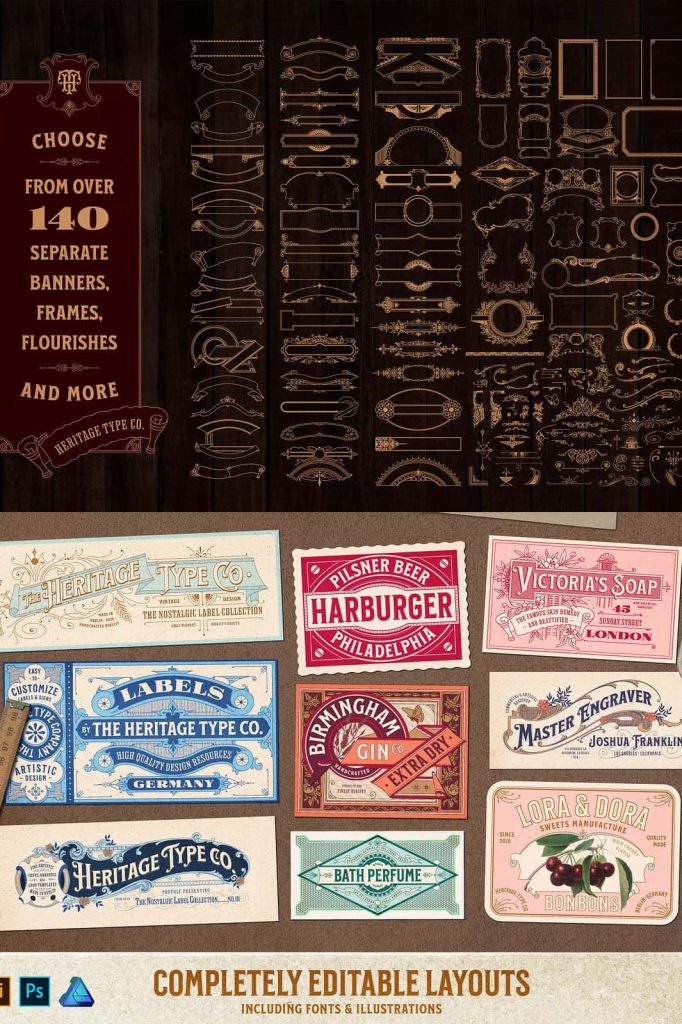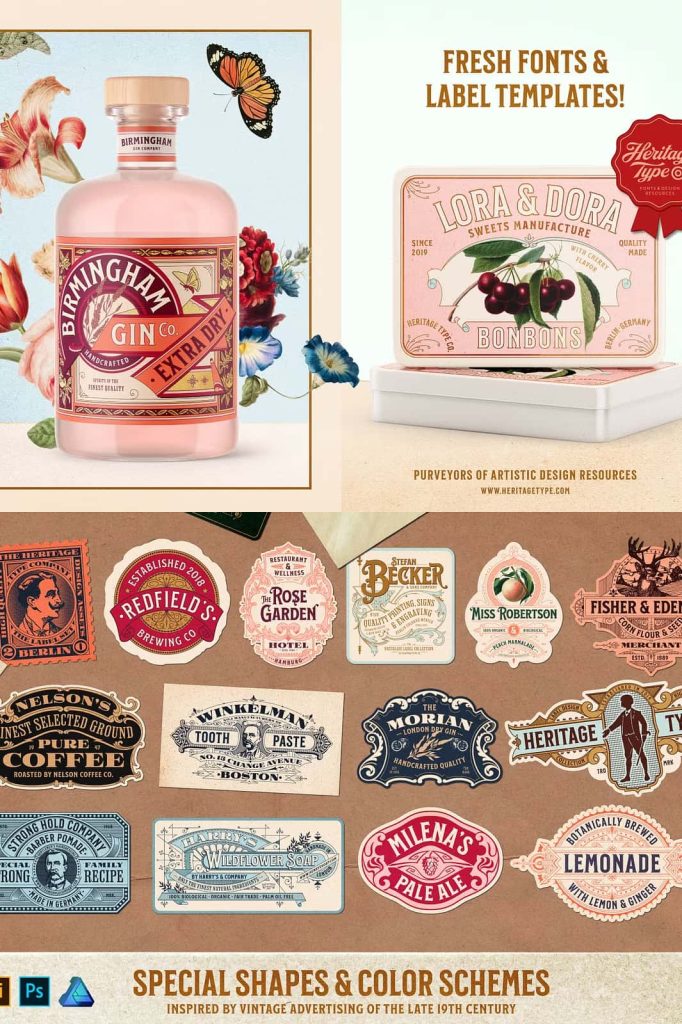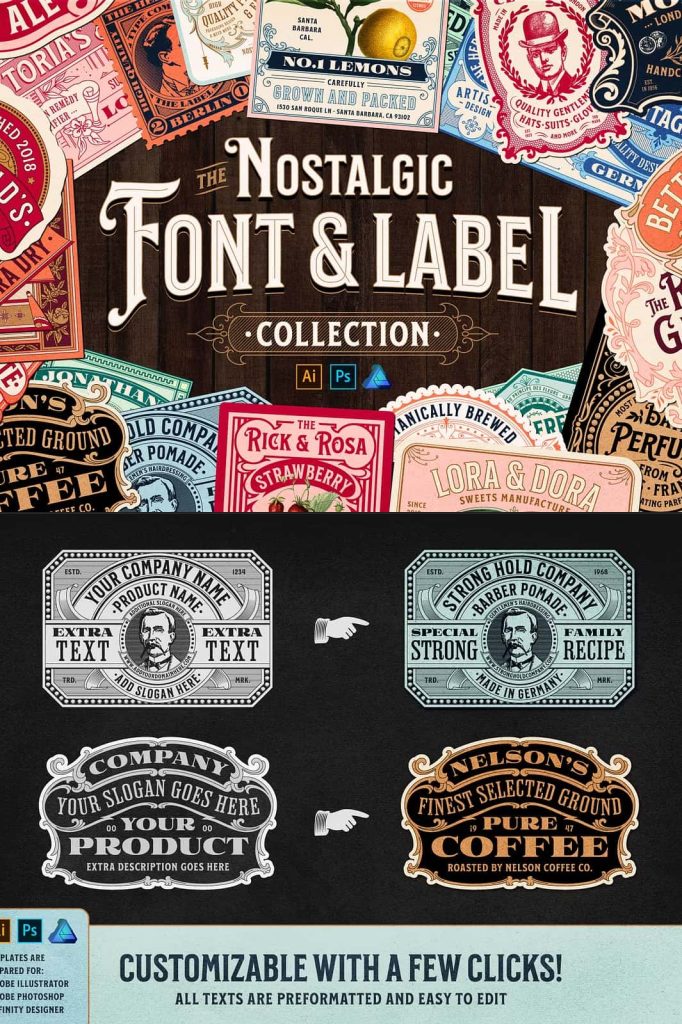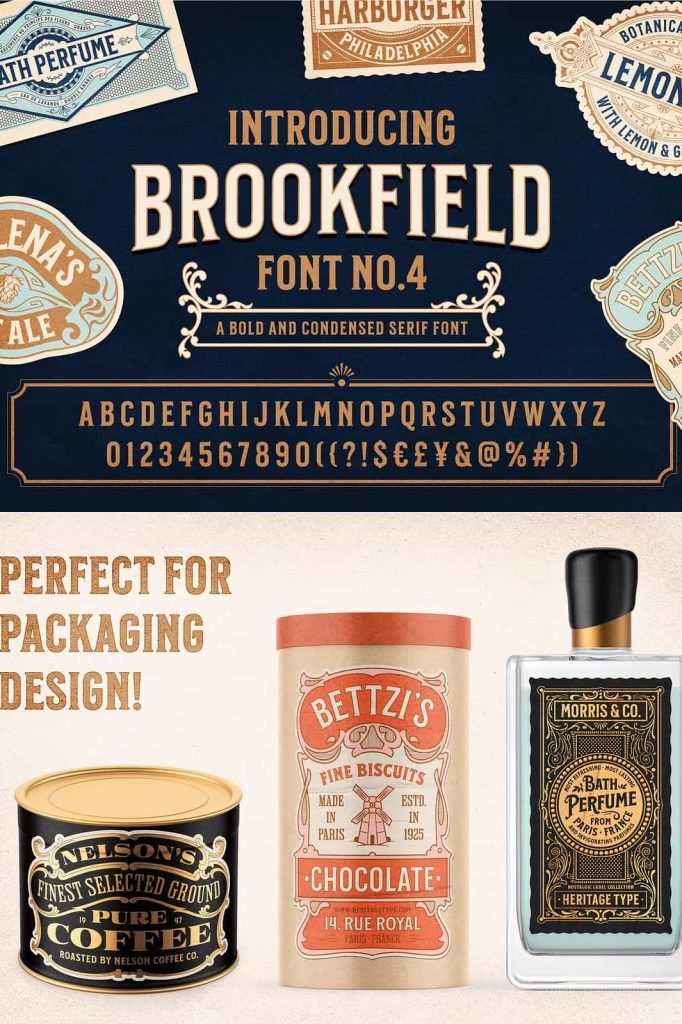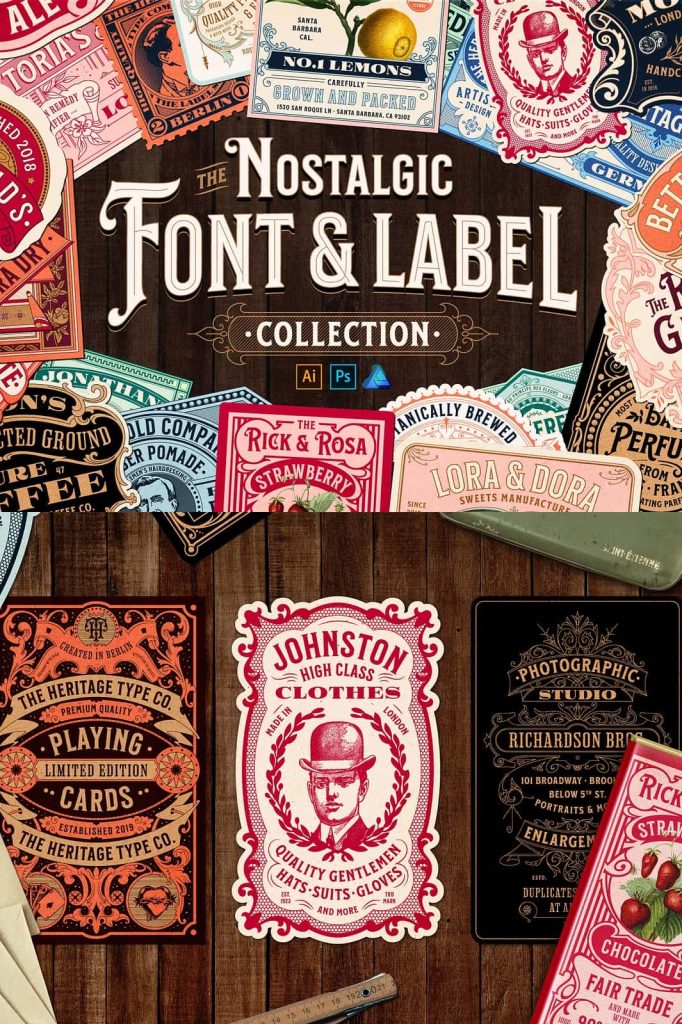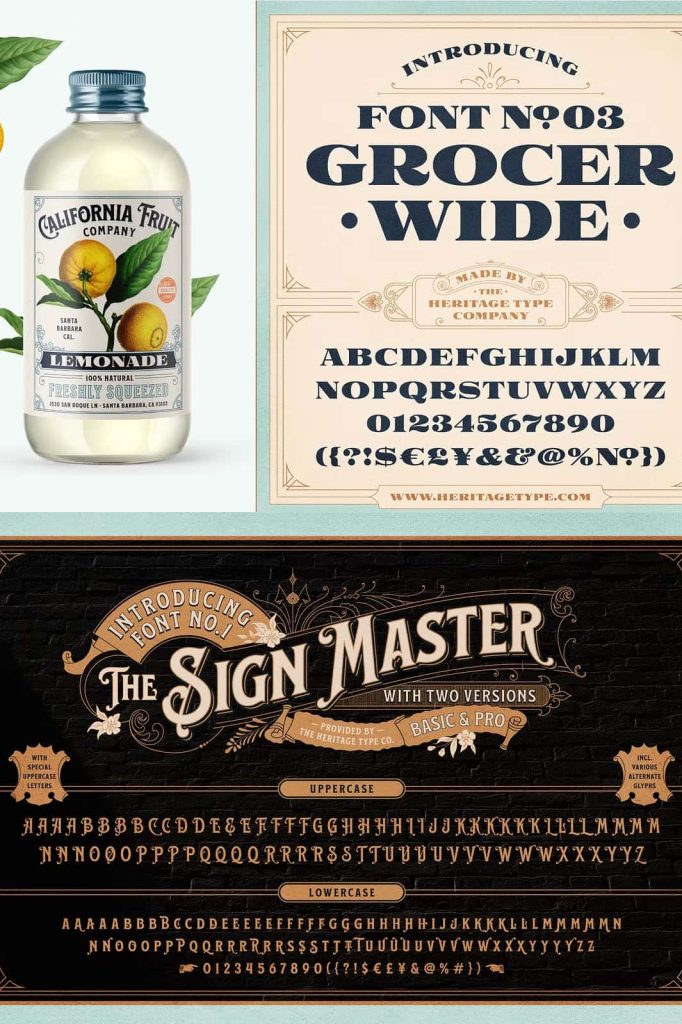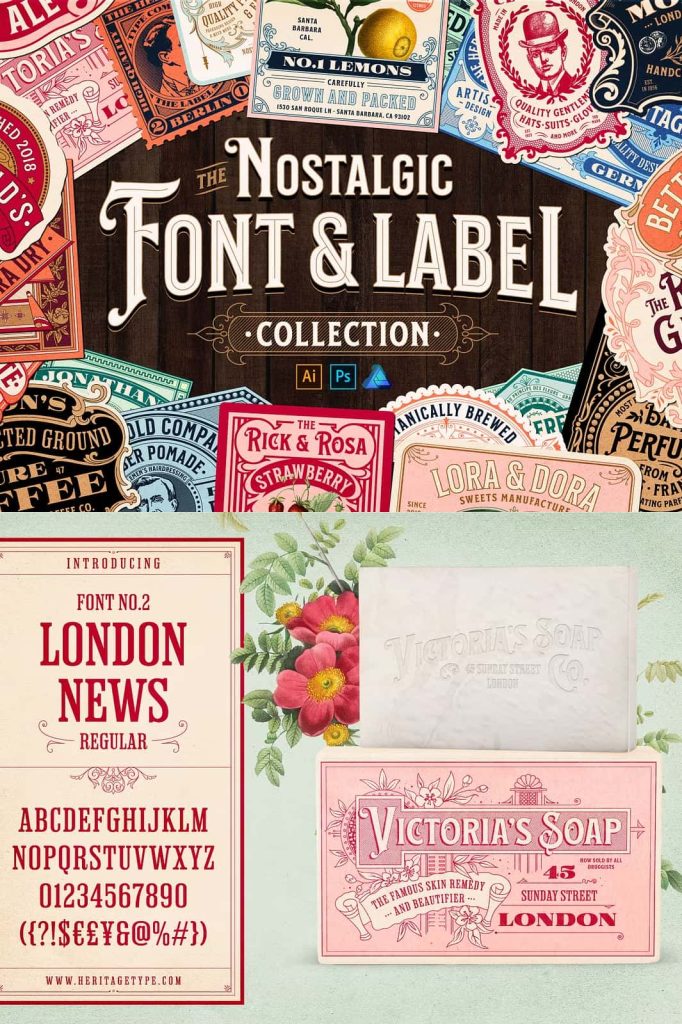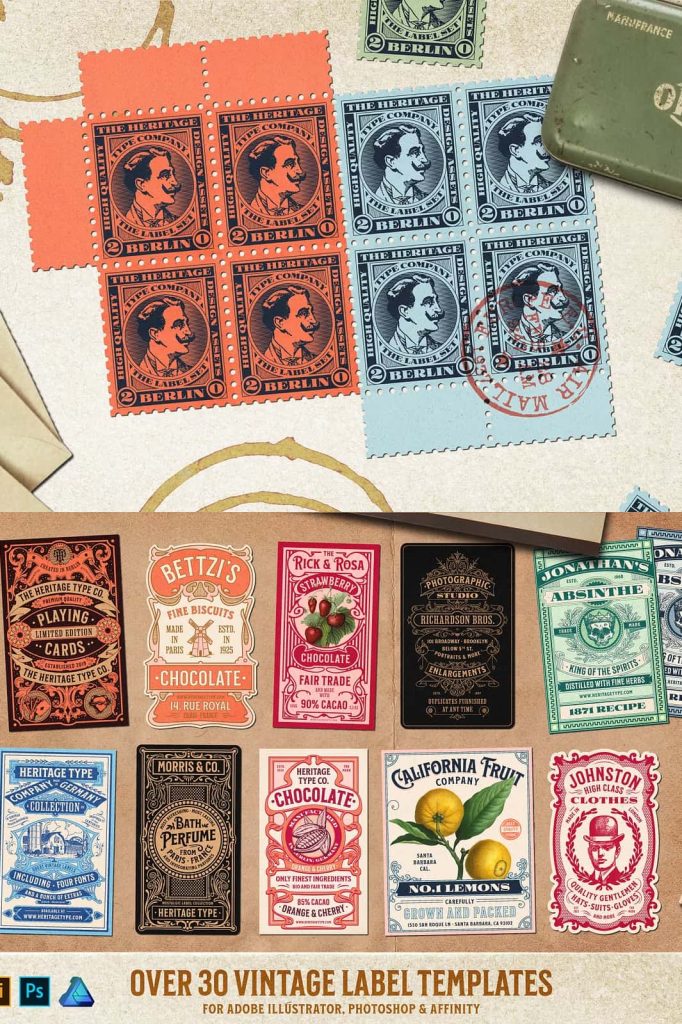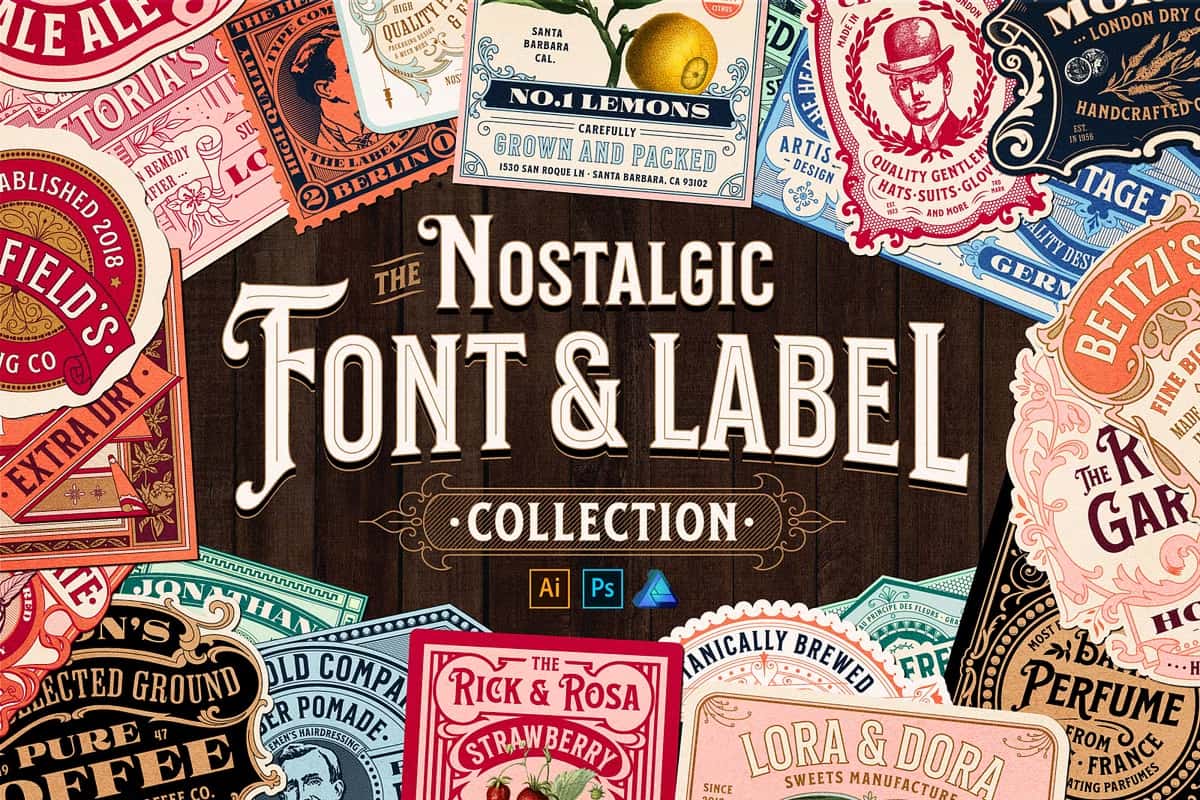
Nostalgic Font and Label Collection
The Nostalgic Font and Label Collection gives you everything you need to craft authentic, vintage-inspired packaging and branding with confidence. This comprehensive design set combines beautifully detailed label templates, classic retro fonts, and a large variety of decorative elements to help you build professional layouts quickly. Instead of starting every project from scratch, you can use these ready-made assets to design faster, smarter, and with greater precision.
Each component reflects a strong focus on quality and craftsmanship. The collection captures the charm of old-school packaging, traditional typography, and handcrafted signage while still offering modern flexibility. You can easily customize every file to match your brand, style, or product. The result feels timeless, elegant, and memorable.
34 Customizable Vector Label Designs
At the heart of the collection, you receive 34 fully editable vector label templates. These labels feature carefully balanced layouts, bold frames, decorative borders, and structured typography areas. They provide a strong foundation for any packaging or branding concept. Simply open a template, replace the text, adjust the colors, and you instantly create a polished design.
Because the labels use vector graphics, you can scale them to any size without losing quality. Use them for small stickers or large posters with equal clarity. This flexibility allows you to adapt one design across multiple formats effortlessly.
Label features include:
- Classic vintage and retro shapes
- Clean vector lines and sharp edges
- Organized text placeholders
- Balanced compositions for professional results
- Easy color and size adjustments
These templates save hours of work and help you maintain consistency across your entire brand system.
4 Unique Vintage Fonts with Character
Typography plays a key role in nostalgic design, and this set delivers four distinctive vintage fonts that immediately create impact. Each typeface carries strong personality, inspired by traditional signage, old packaging, and classic print techniques. You can mix bold headlines with decorative details or pair fonts to build contrast and hierarchy.
These fonts help you communicate authenticity and trust. Instead of using generic typefaces, you can craft labels and logos that feel handcrafted and original. Every letter adds charm and depth to your message.
Font advantages:
- Distinct retro style and strong readability
- Perfect for titles, logos, and packaging text
- Works well in both print and digital formats
- Complements the included label templates
Over 140 Decorative Elements for Full Creative Control
To expand your design possibilities, the collection also includes more than 140 individual elements. These graphics allow you to customize and personalize each label beyond the basic structure. Add flourishes, banners, badges, icons, ornaments, and frames to create rich, layered compositions that feel authentic and detailed.
Instead of repeating the same layout, you can mix and match elements to produce countless variations. This flexibility helps you build unique designs for every product or client.
Elements include:
- Banners and ribbons
- Badges and seals
- Ornaments and dividers
- Icons and decorative symbols
- Frames and borders
These pieces work together seamlessly, allowing you to construct complex designs without sacrificing clarity.
Perfect for Packaging and Branding Projects
The Nostalgic Font and Label Collection adapts to a wide range of industries and products. Whether you create food packaging, craft beverage labels, or lifestyle branding, these templates help you deliver a premium look. The vintage aesthetic communicates quality, heritage, and craftsmanship, which builds strong emotional connections with customers.
You can quickly design labels for food jars, spirits, beer bottles, cosmetics, lemonades, sweets, playing cards, clothing tags, and many other products. The assets provide consistent style across your entire product line while still allowing creative freedom.
Easy to Edit in Popular Design Software
This collection integrates smoothly into your existing workflow. Open and edit the files in Adobe Illustrator, Photoshop, or Affinity Designer without complicated setup. Change text, swap fonts, adjust shapes, or modify colors in just a few clicks. Even beginners can navigate the templates easily, while professionals can dive deeper and fully customize every detail.
The organized layers and clean structure help you work efficiently and stay focused on creativity rather than technical problems.
Create Timeless Designs with Confidence
Vintage design never goes out of style. It communicates authenticity, tradition, and trust. By using this Nostalgic Font and Label Collection, you gain the tools to produce elegant, classic visuals that stand out in competitive markets. You can build packaging that looks handcrafted, refined, and premium without spending endless hours designing from scratch.
Combine the 34 vector labels, 4 unique fonts, and 140+ decorative elements to create countless variations. Experiment freely, develop strong brand identities, and deliver beautiful results every time. This collection empowers you to design faster, work smarter, and create nostalgic designs that leave a lasting impression.